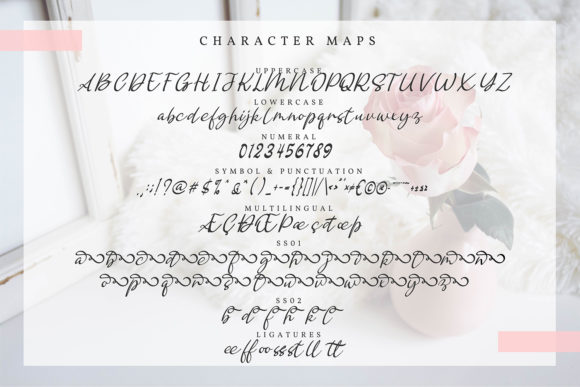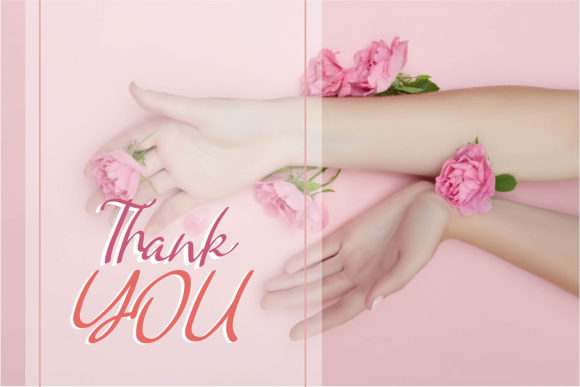
Introduction to Mhallica Font
Have you ever stared at a blank page, pencil in hand, searching for the perfect font to bring your creative project to life? As designers, we’ve all been there – and that’s exactly why discovering the right design resource can be a game-changer. For those seeking a timeless and elegant touch, look no further than the stunning Mhallica Font.
With its delicate and intricate strokes, Mhallica Font is the perfect choice for designers who want to add a handwritten touch to their work. Whether you’re crafting a wedding invitation, a heartfelt thank you card, or a company logo, this high-quality font is sure to elevate your design to the next level. Plus, with its transparent background and PUA encoding, accessing all the glyphs and swashes is a breeze – making it a valuable addition to any designer’s toolkit.
Key Features of Mhallica Font
- Includes a wide range of characters, including Latin and Cyrillic alphabets
- Designed with a unique, modern aesthetic, perfect for contemporary design
Honest Review: Mhallica Font
Firstly, the high quality of the font is evident from the moment you start using it. The clean and modern design makes it perfect for a variety of creative projects, from branding to web design. ✨ I particularly appreciate the transparent background, which makes it easy to overlay the font on any image or background.
- Limited character set (only includes uppercase and lowercase letters, with a few punctuation marks)
- No bold or italic styles available
Overall, I’m impressed with the Mhallica Font and would definitely recommend it for any designer looking for a free, high-quality font to use in their creative project. While it may not be perfect, it’s a great addition to any design library. ⚠️ Just be aware of its limitations and plan accordingly.
Common Use Cases for Mhallica Font
The Mhallica Font is ideal for various design projects, including business cards, brochures, and social media graphics. Its high-quality design and transparent background make it a versatile resource for designers and non-designers alike.